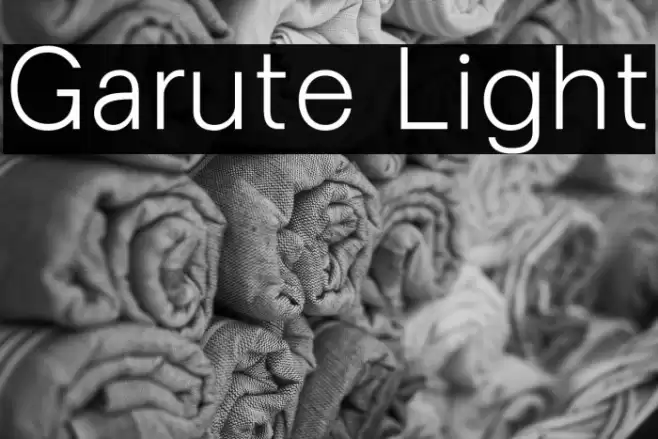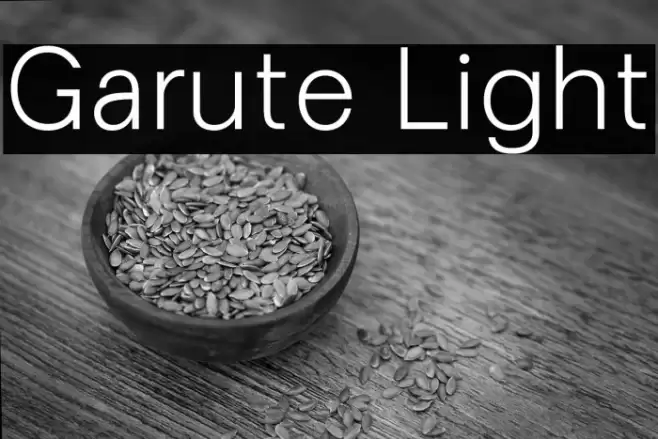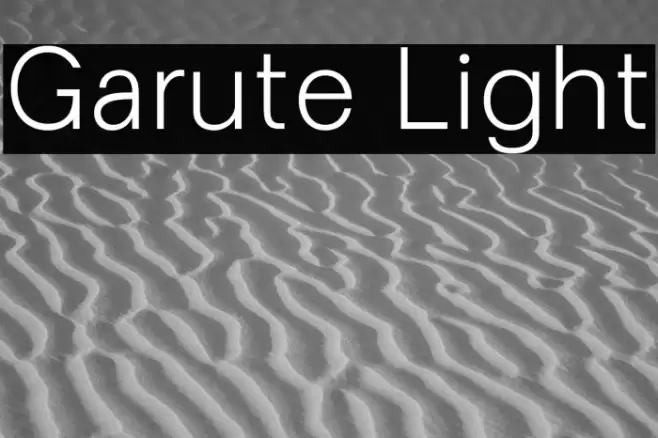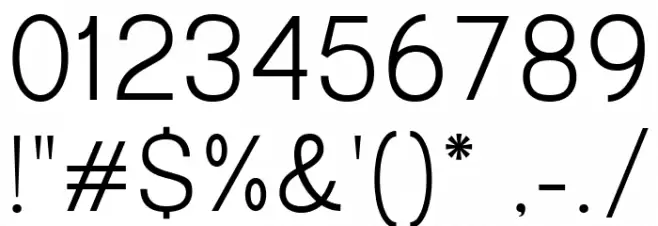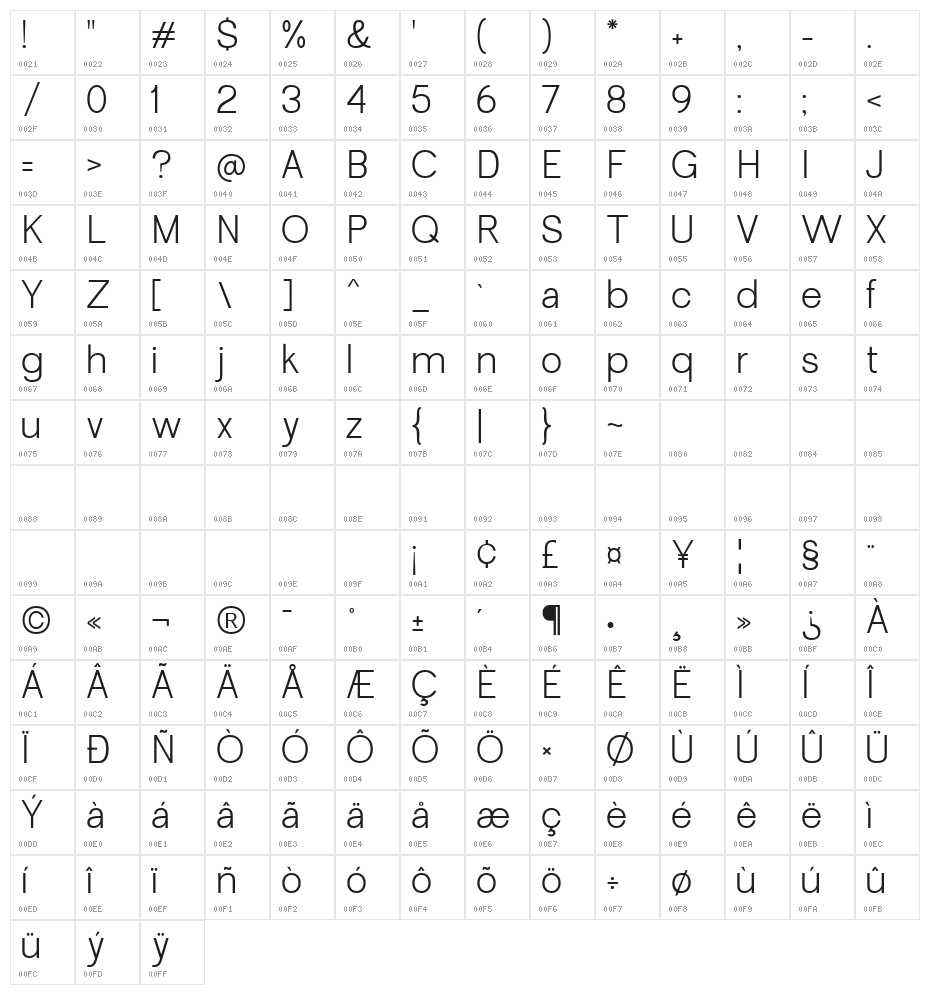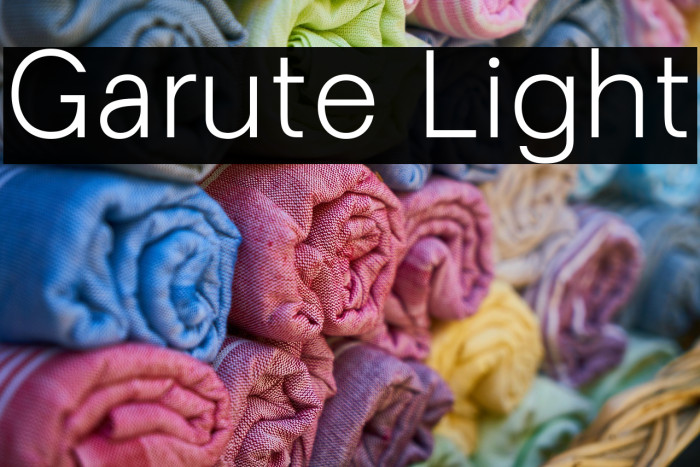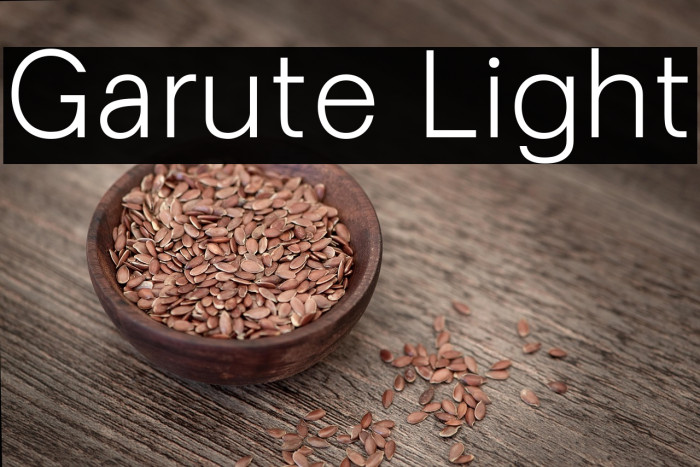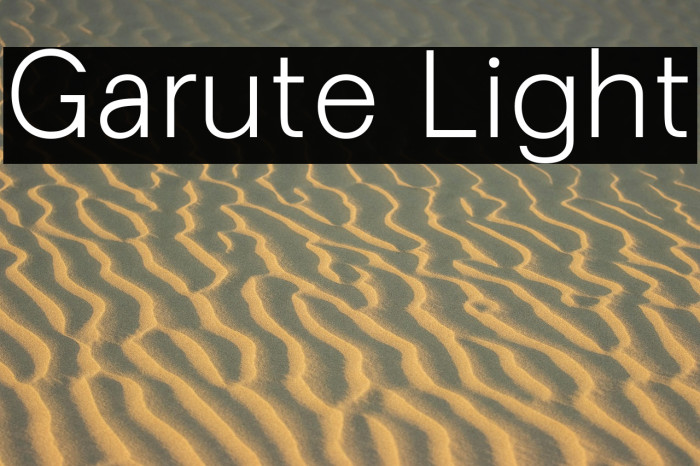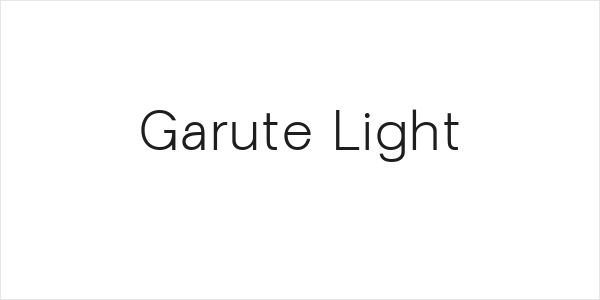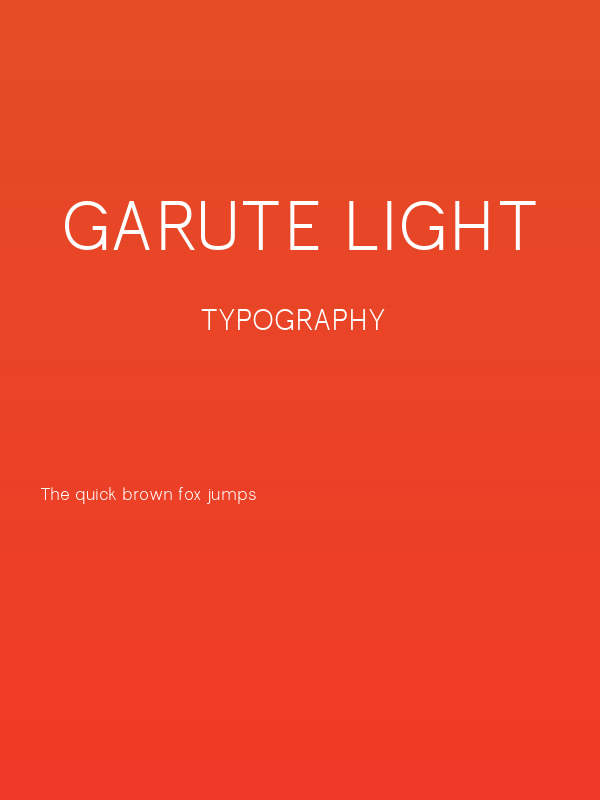
Garute Light Font
Garute Light Description
This font exhibits a clean and modern sans-serif style, characterized by its minimalistic and straightforward design. The letterforms are uniform and geometric, providing a sense of balance and clarity. The strokes are consistent in weight, contributing to a harmonious appearance. The font maintains a professional and contemporary look, making it suitable for a wide range of applications. Its simplicity and elegance make it versatile for both digital and print media. The characters are well-spaced, ensuring readability and a smooth visual flow.
A clean, modern sans-serif font with geometric letterforms and consistent stroke weight from Uncategorized fonts.
- Proposed Projects: Ideal for corporate branding, web design, editorial layouts, and user interfaces.